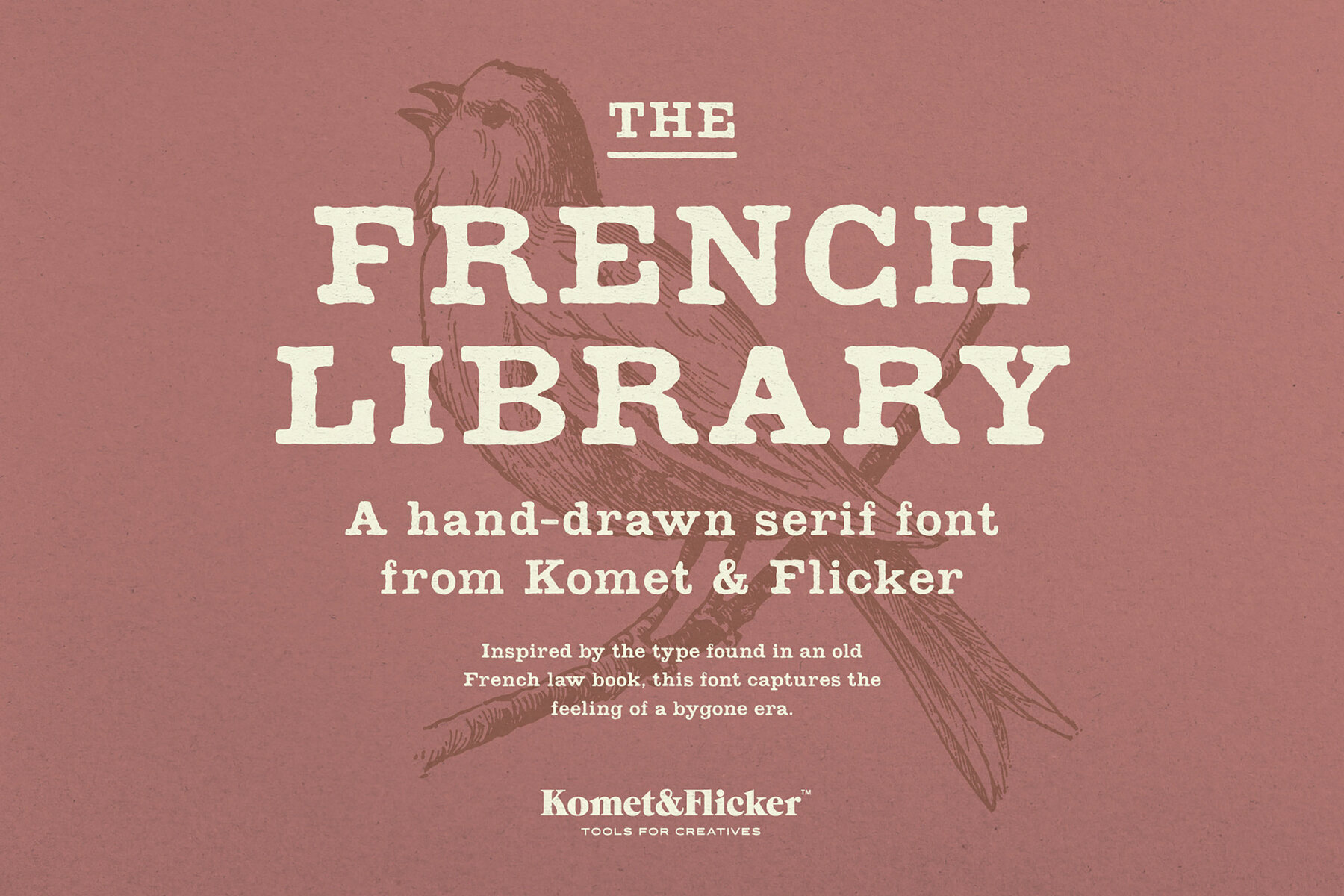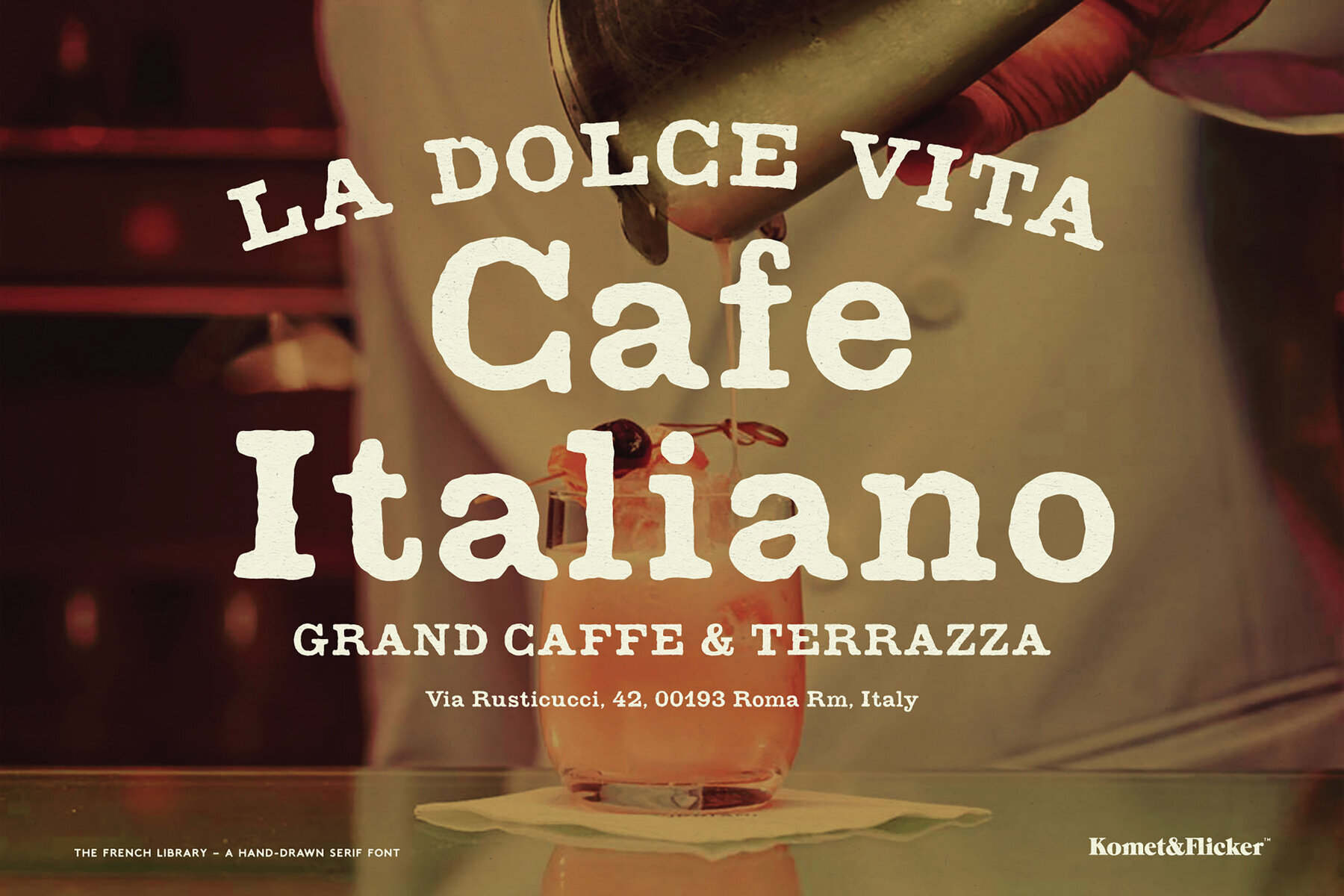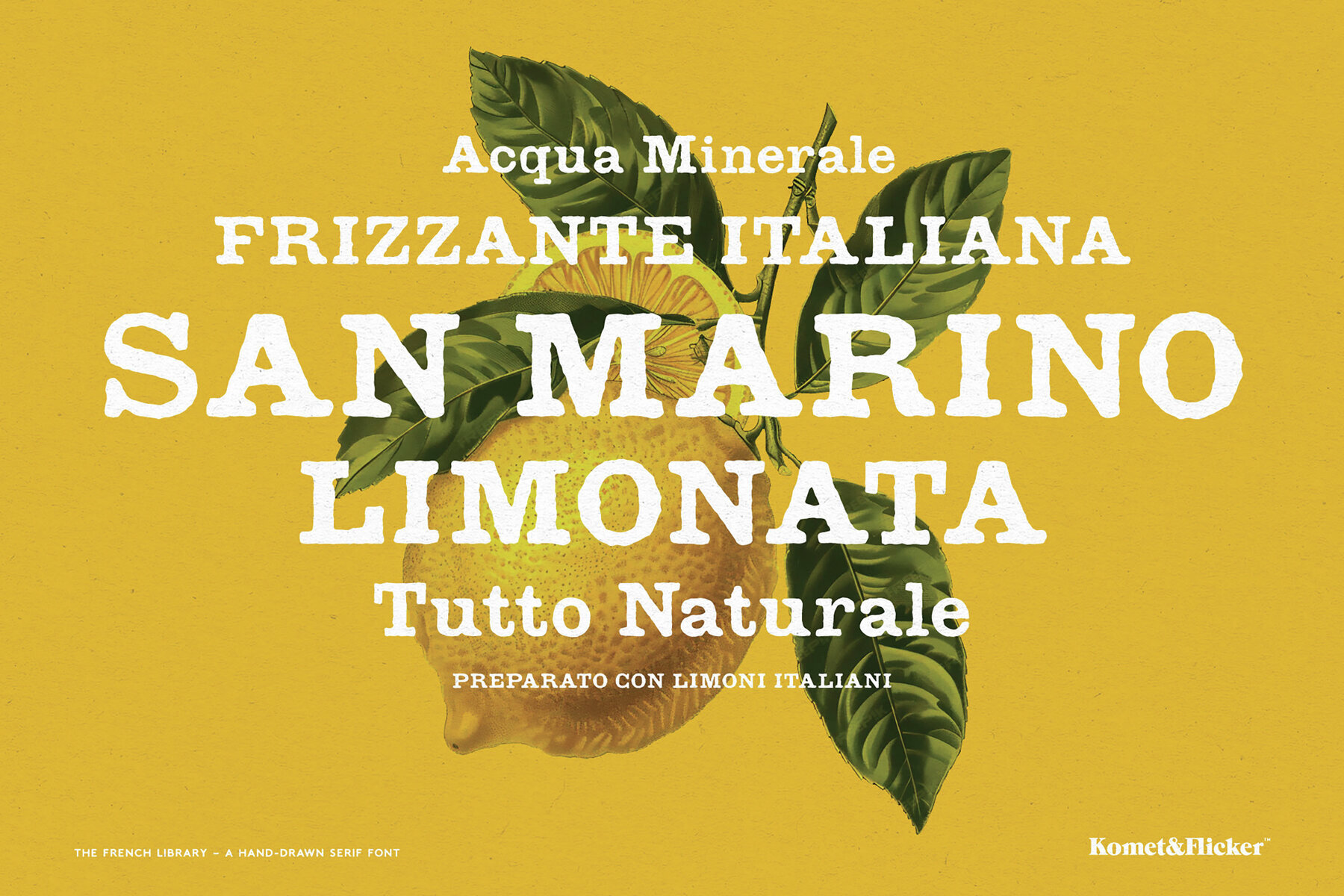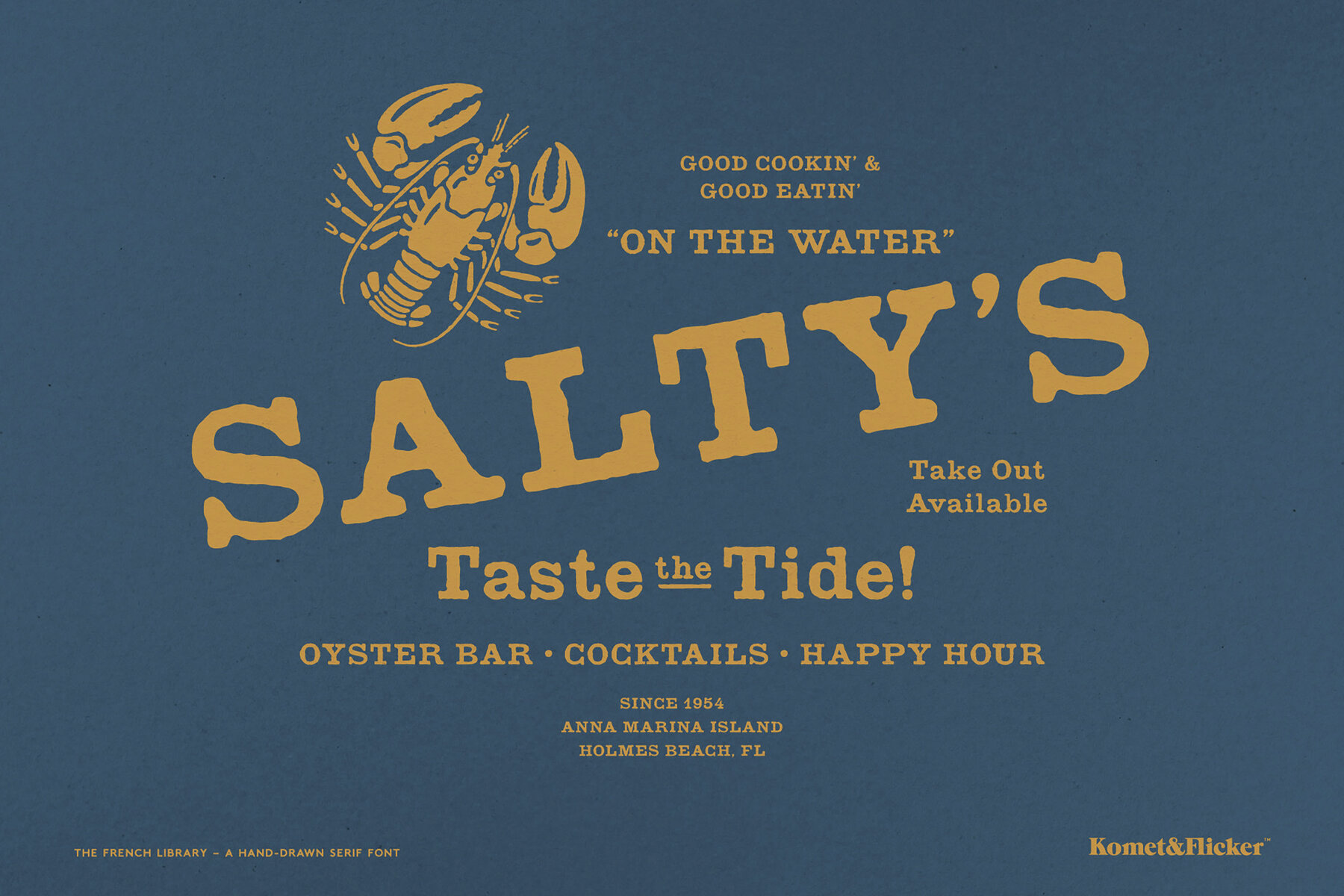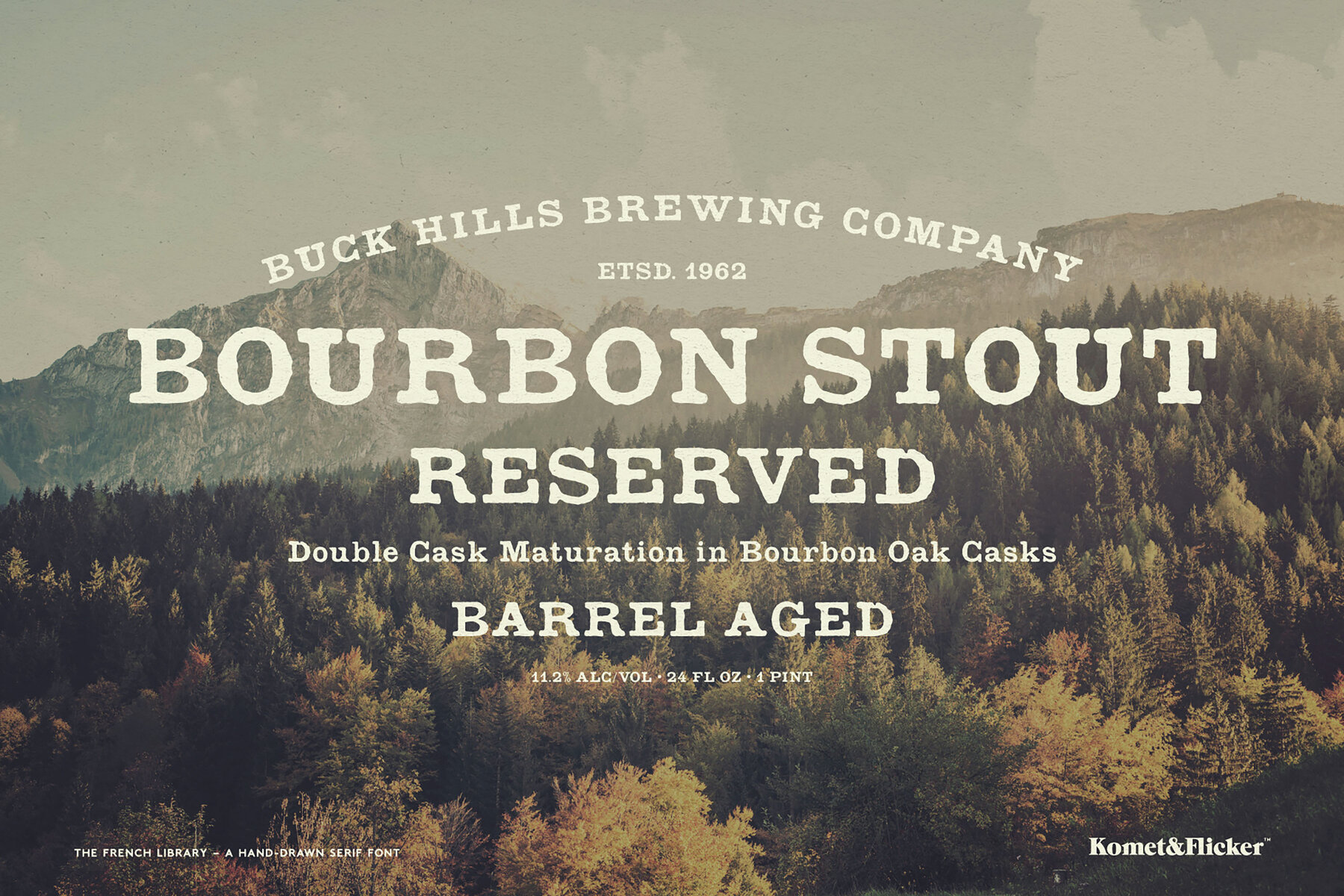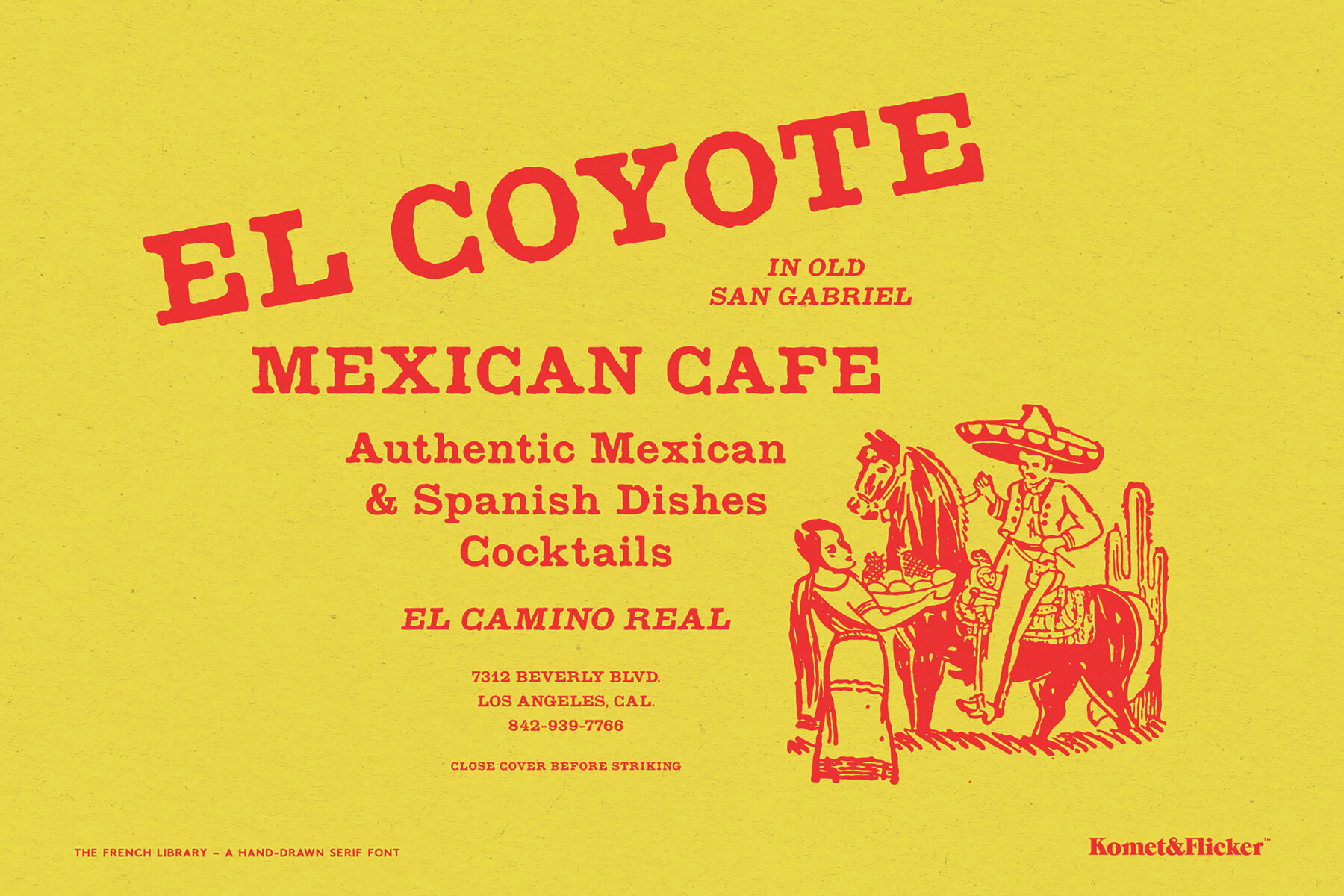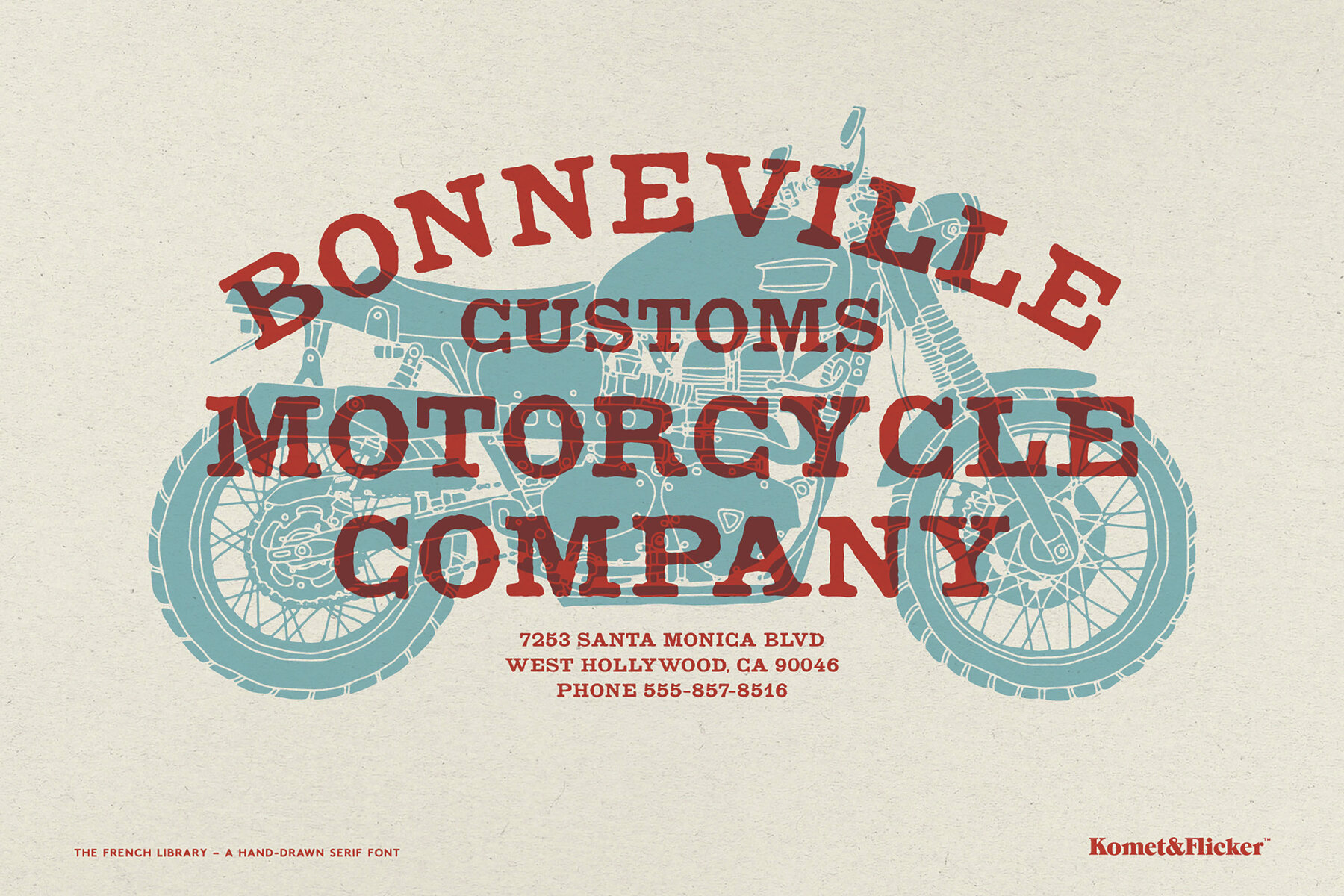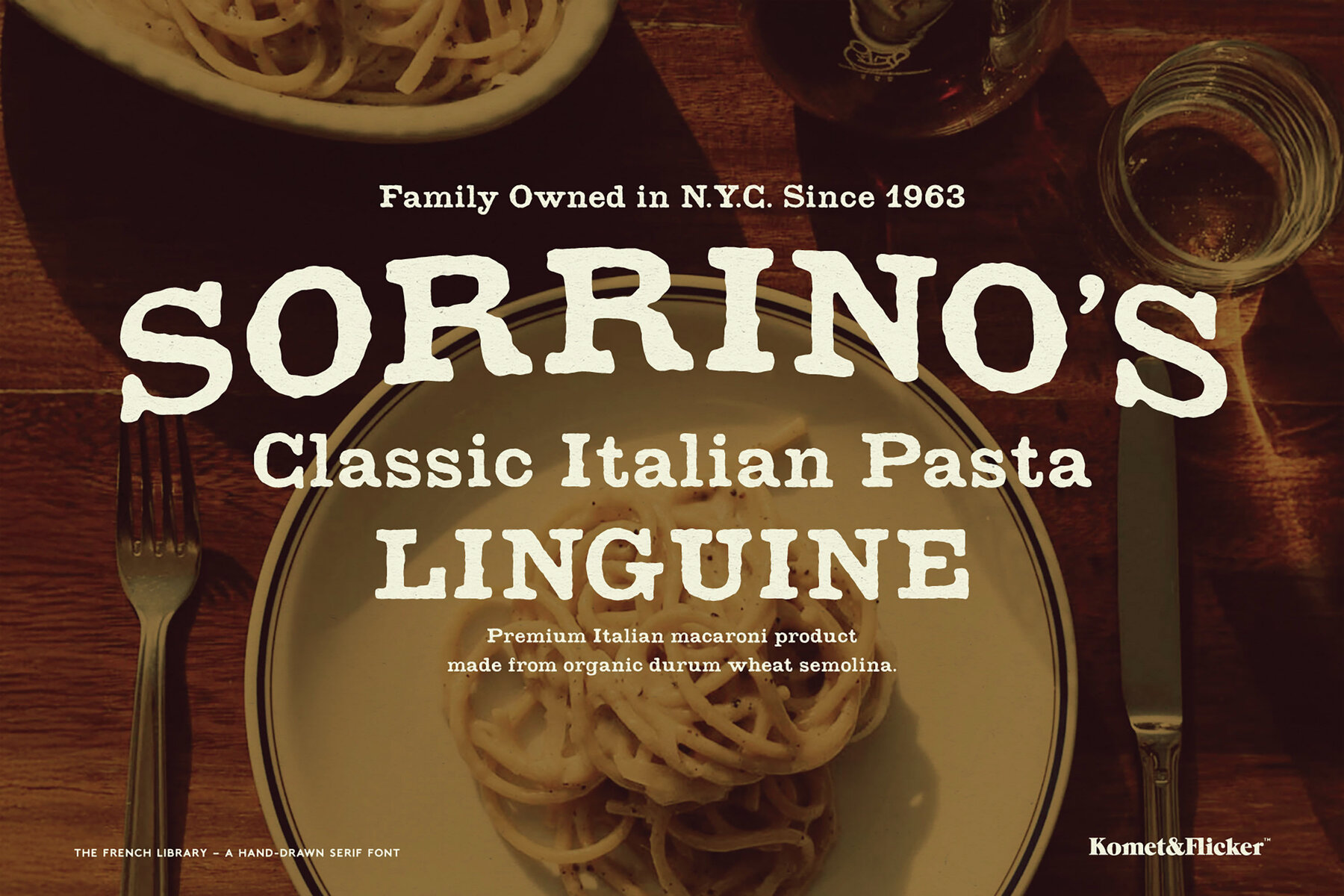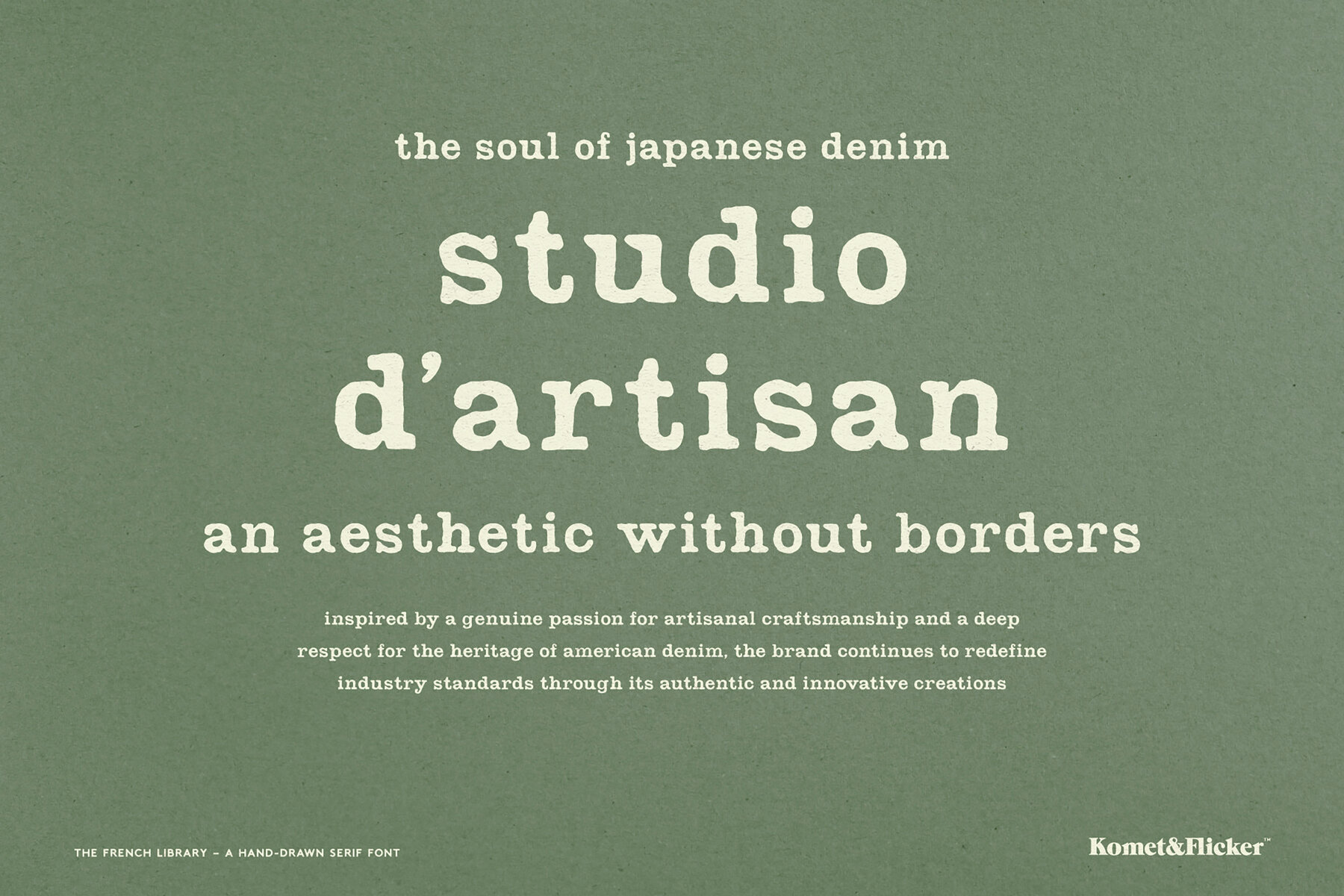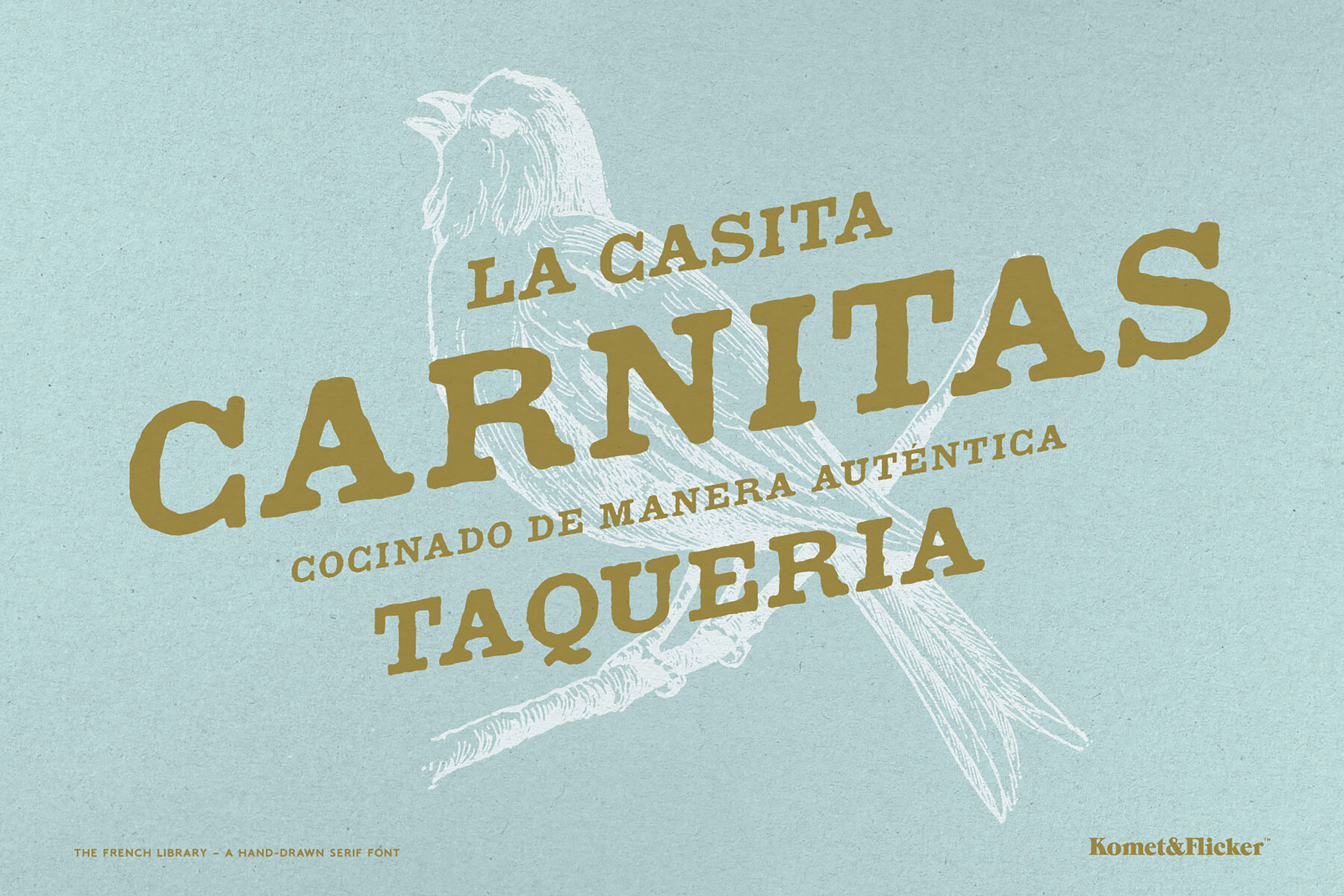
The French Library Font
The French Library Medium
The French Library is a hand-drawn typeface inspired by the typography of an antique French law book. Characterized by irregular letterforms, it offers a natural roughness, lending a vintage warmth and distinctive personality to any design. With 20 connecting word glyphs in two styles, this typeface easily facilitates smooth, organic text flow, emulating a more natural handwritten appearance. Simple, tactile, and thoughtfully designed, The French Library breathes history into each character. In Illustrator, customize with ease via the "Type → Glyphs" panel. In Photoshop, access through "Type → Panels → Glyphs Panel."The French Library: Vintage-inspired Typeface